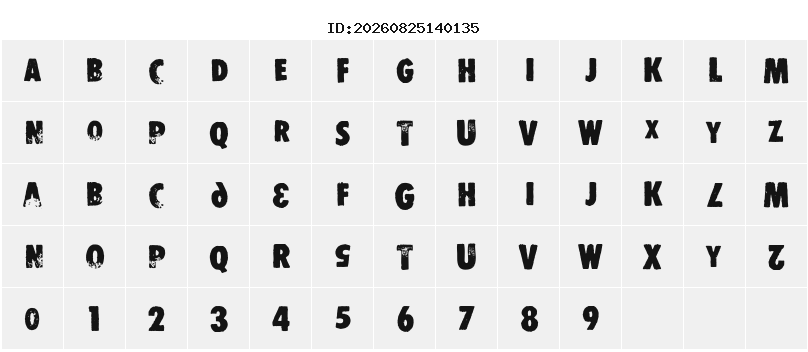
• Font Name: STOMPER
• Full Font Name: STOMPER
• PostScript Name: STOMPER
About STOMPER.ttf
STOMPER.ttf is a modern, elegant sans-serif font designed for ultimate readability and visual harmony. Perfect for branding, headlines, web design, and print materials.